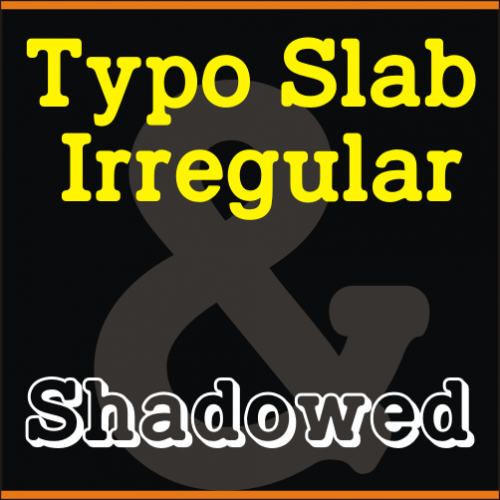
Typo Slab, designed by Mehmet Abacı, embodies a harmonious balance between irregular classic slab serif aesthetics and modern design needs. Created under the StudioTypo label, this font family stands out with its strong, structured letterforms, making it perfect for impactful headlines, logos, and editorial design. Its versatility extends across print and digital mediums, offering compatibility with Basic Latin, West European Diacritics, Central Europe, Baltic, and Turkish alphabets. Additionally, it supports key currency symbols such as €, $, £, ₺, and ¥, ensuring global usability.
The inspiration behind Typo Slab stemmed from a desire to merge the timeless appeal of slab serif fonts with a contemporary twist that suits today’s branding and design demands. Abacı meticulously crafted this typeface to ensure legibility and visual harmony, providing designers with a tool that seamlessly adapts to diverse projects. Its robust letterforms and clean curves create a perfect balance between tradition and innovation.
Typo Slab includes multiple styles, including a unique shadowed variation that enhances its visual appeal for creative applications. It is ideal for creating bold and memorable brand identities, advertising materials, and publications. With a glyph count exceeding 350, it provides extensive design flexibility, all while being easy to use and highly professional.
Whether you are crafting a cutting-edge logo, designing a dynamic layout, or developing a branding system, Typo Slab delivers the reliability and creativity you need. Explore its demo version to experience its capabilities and see how it transforms your projects. Discover the story of Typo Slab and its creative possibilities today!
Typo Slab Irregular (2 in 1)